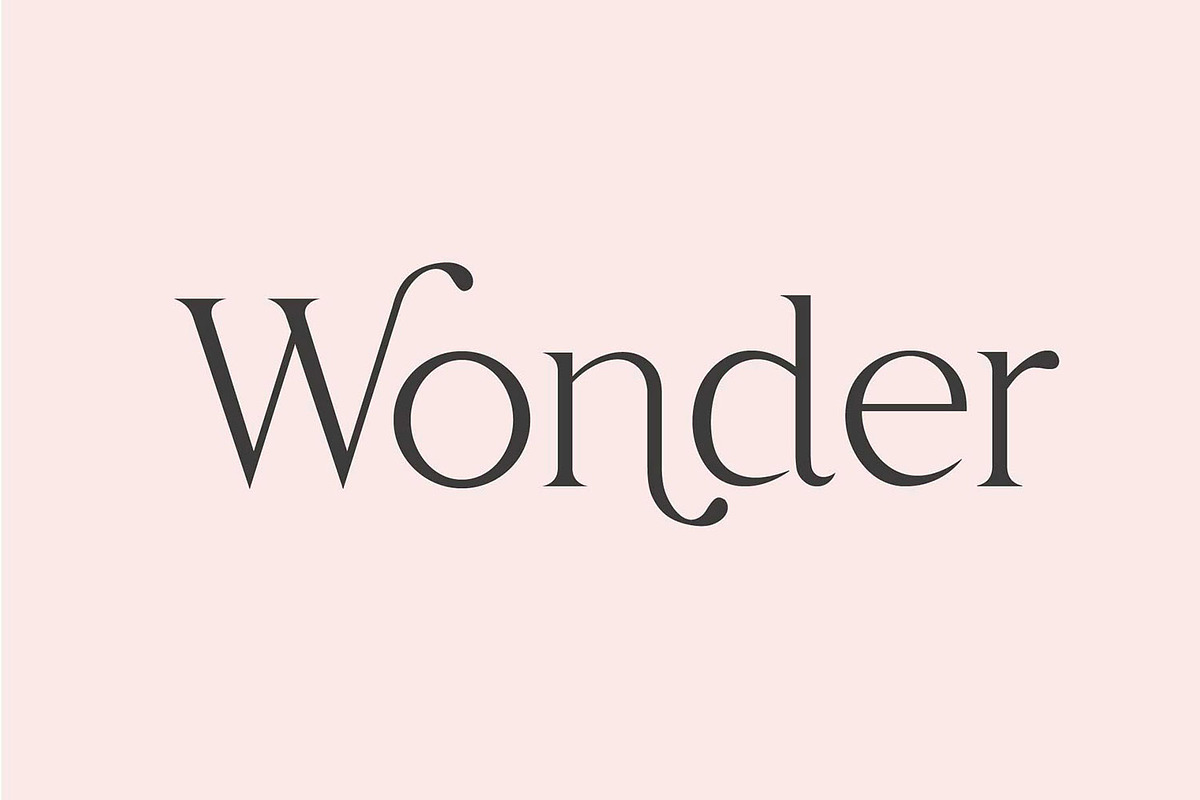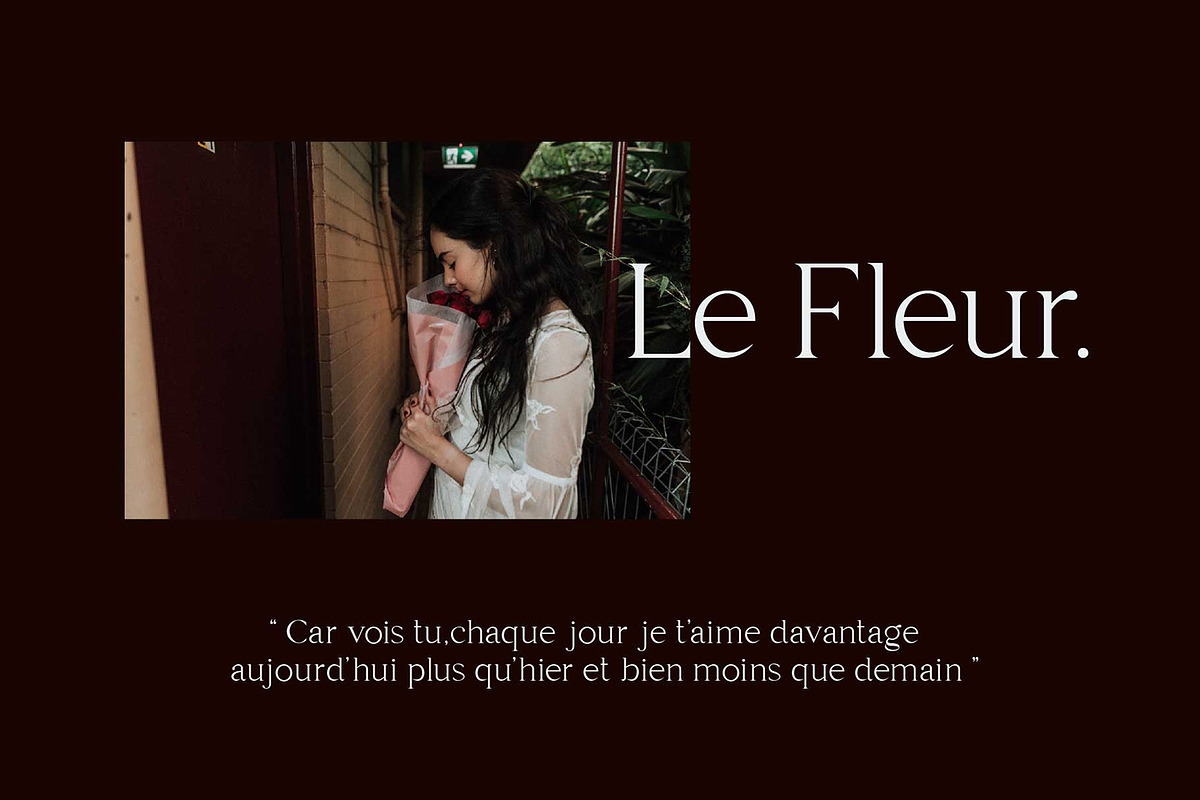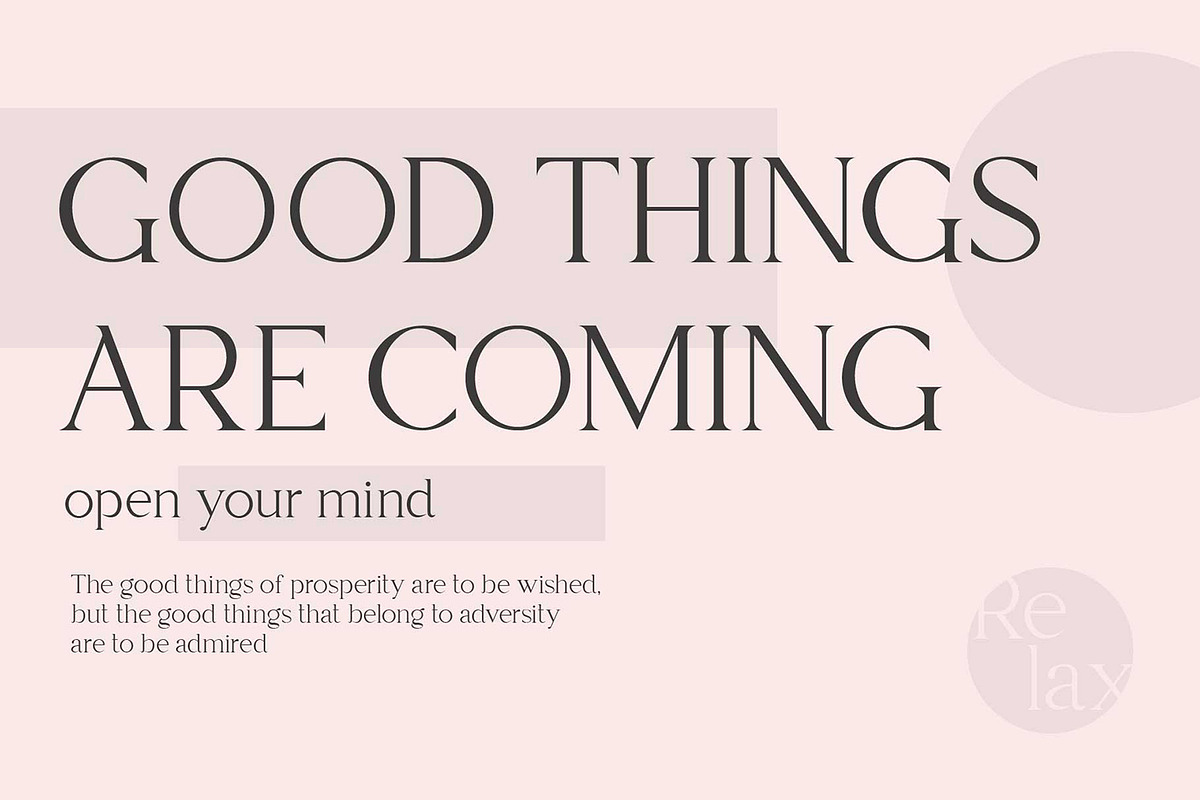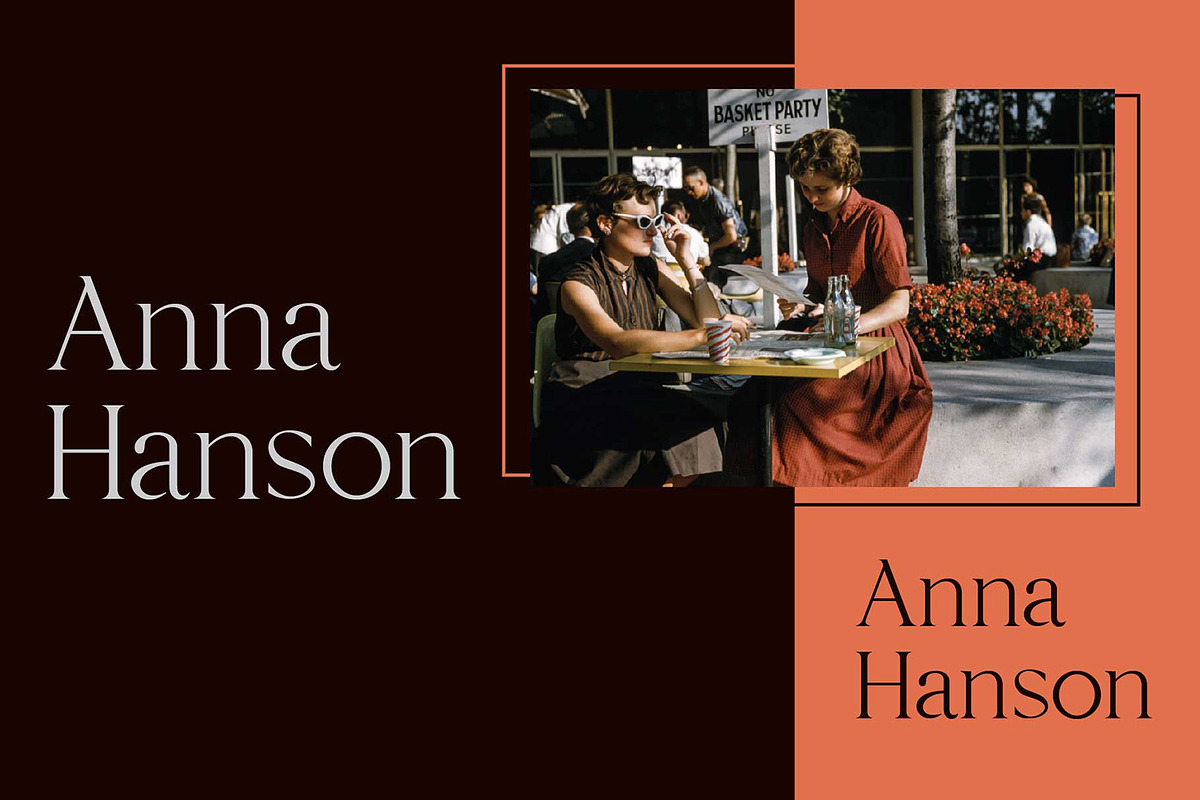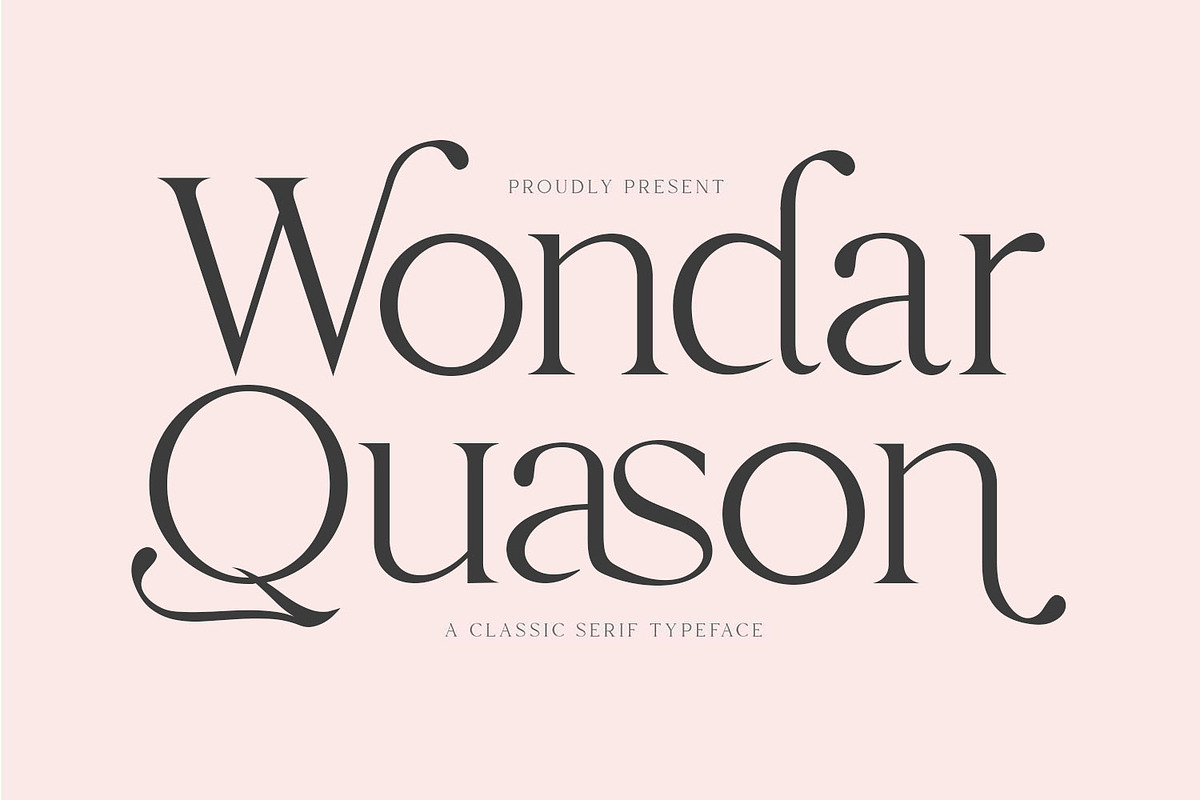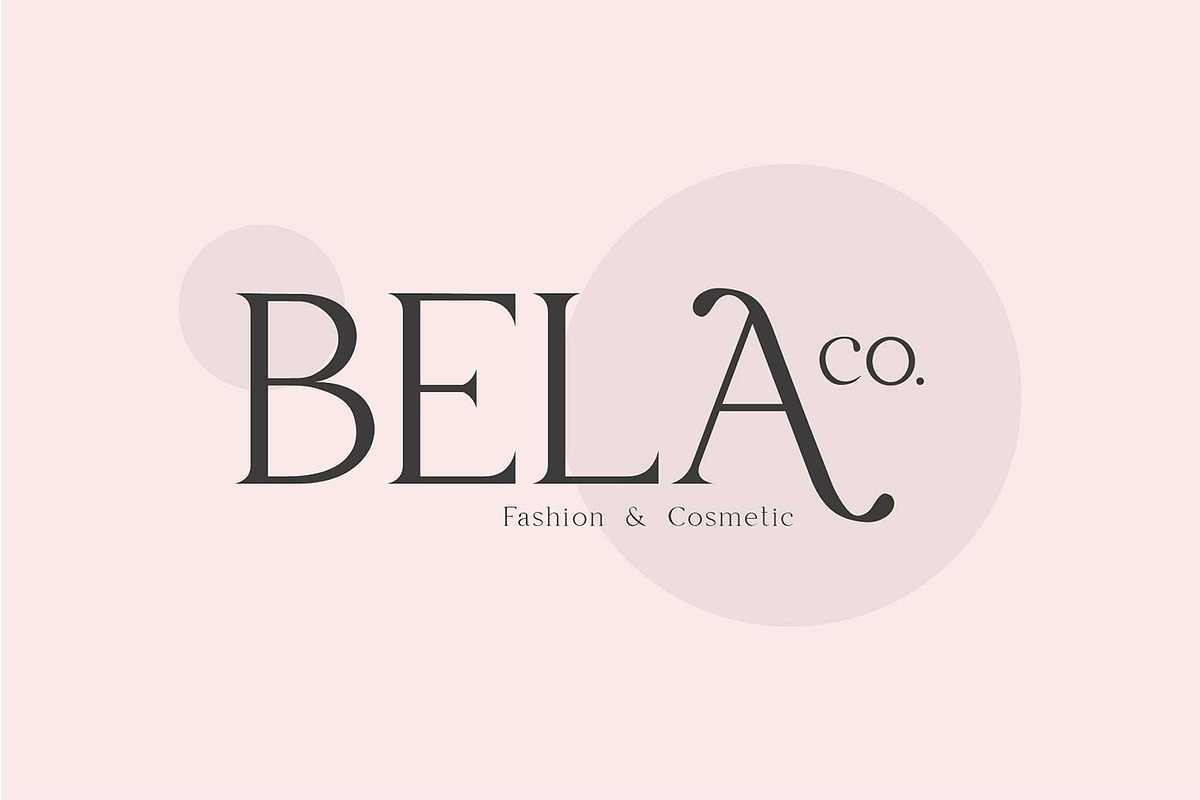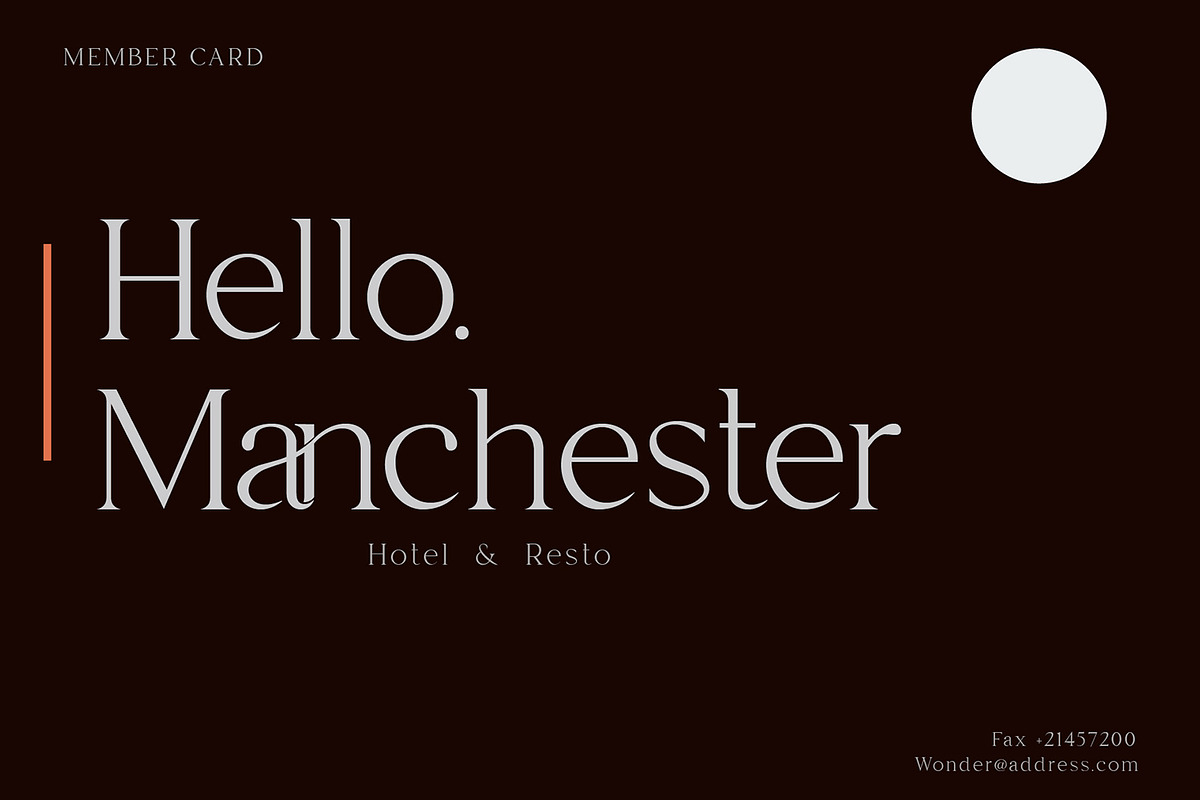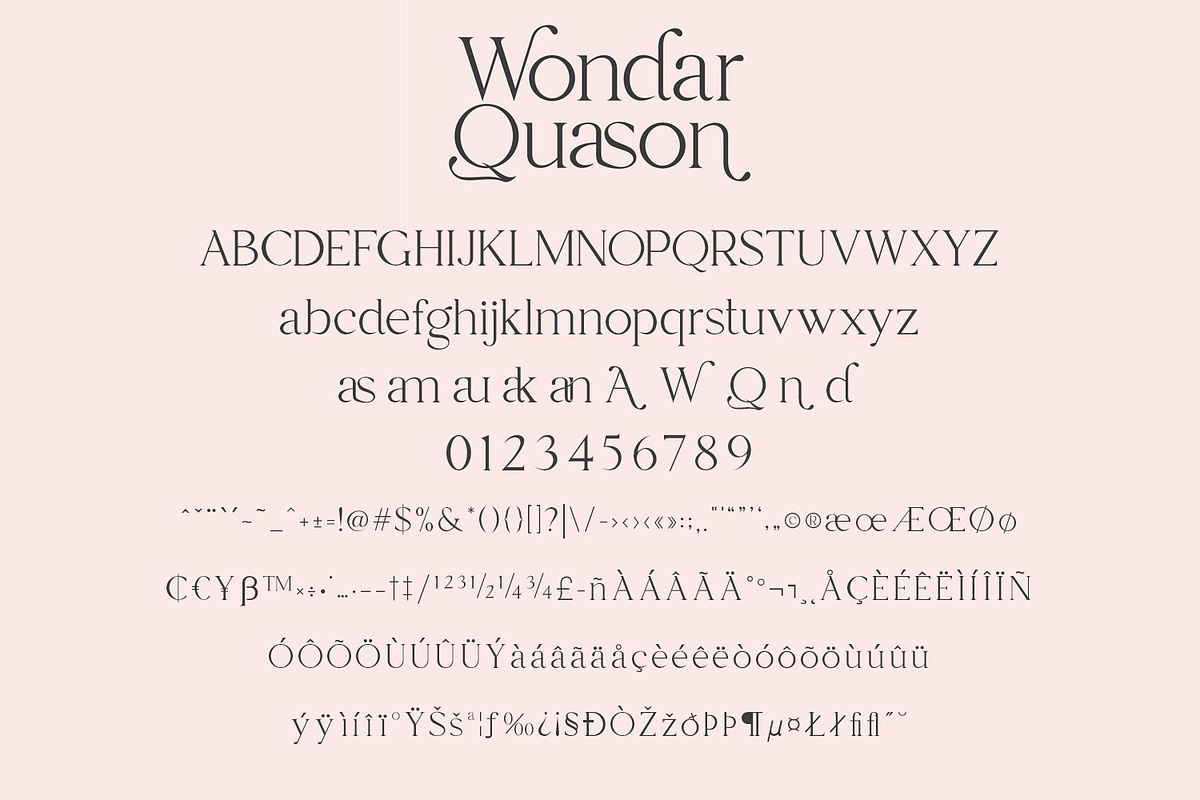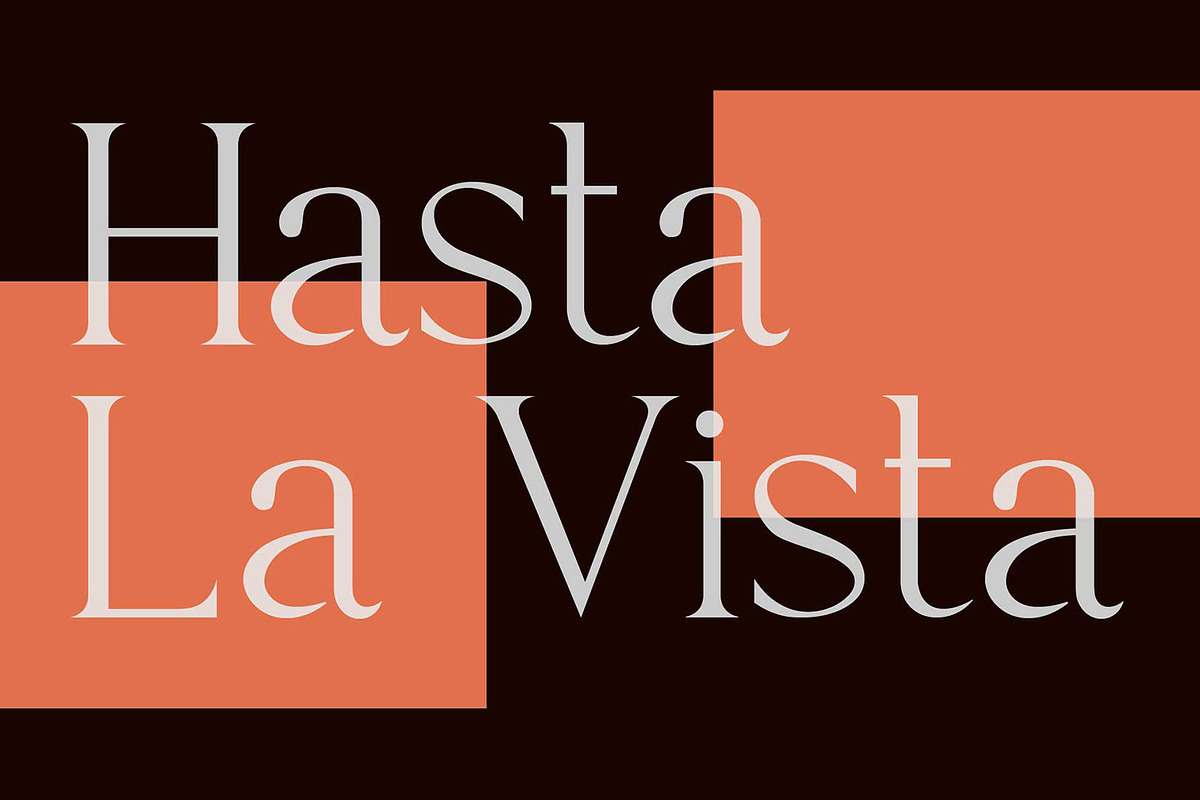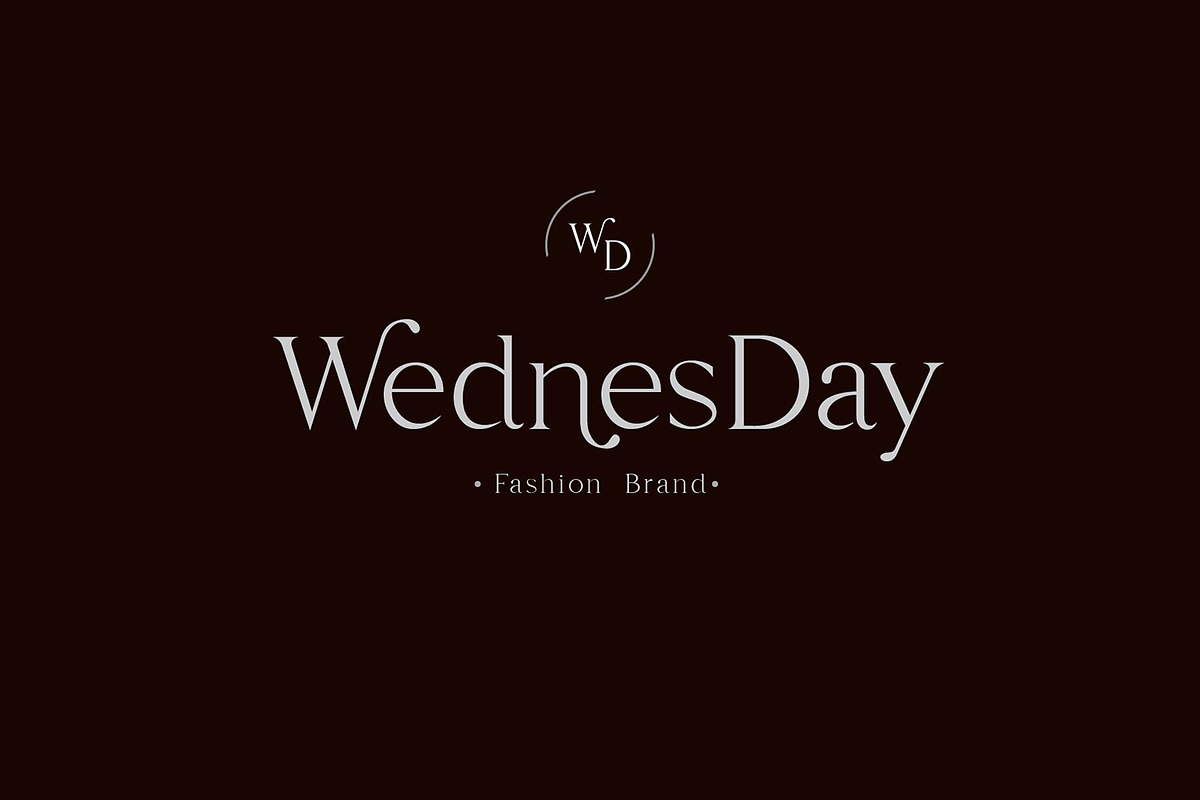
Wondar Quason Classic Serif Typeface
Introducing Wondar Quason Classic Serif Typeface
Wondar Quason Classic Serif Typeface is a handmade Modern Victorian handlettering, which is combining modern and classic typography with some awesome alternates. Yes we back to early 1800s, bring classic touch on this decade.